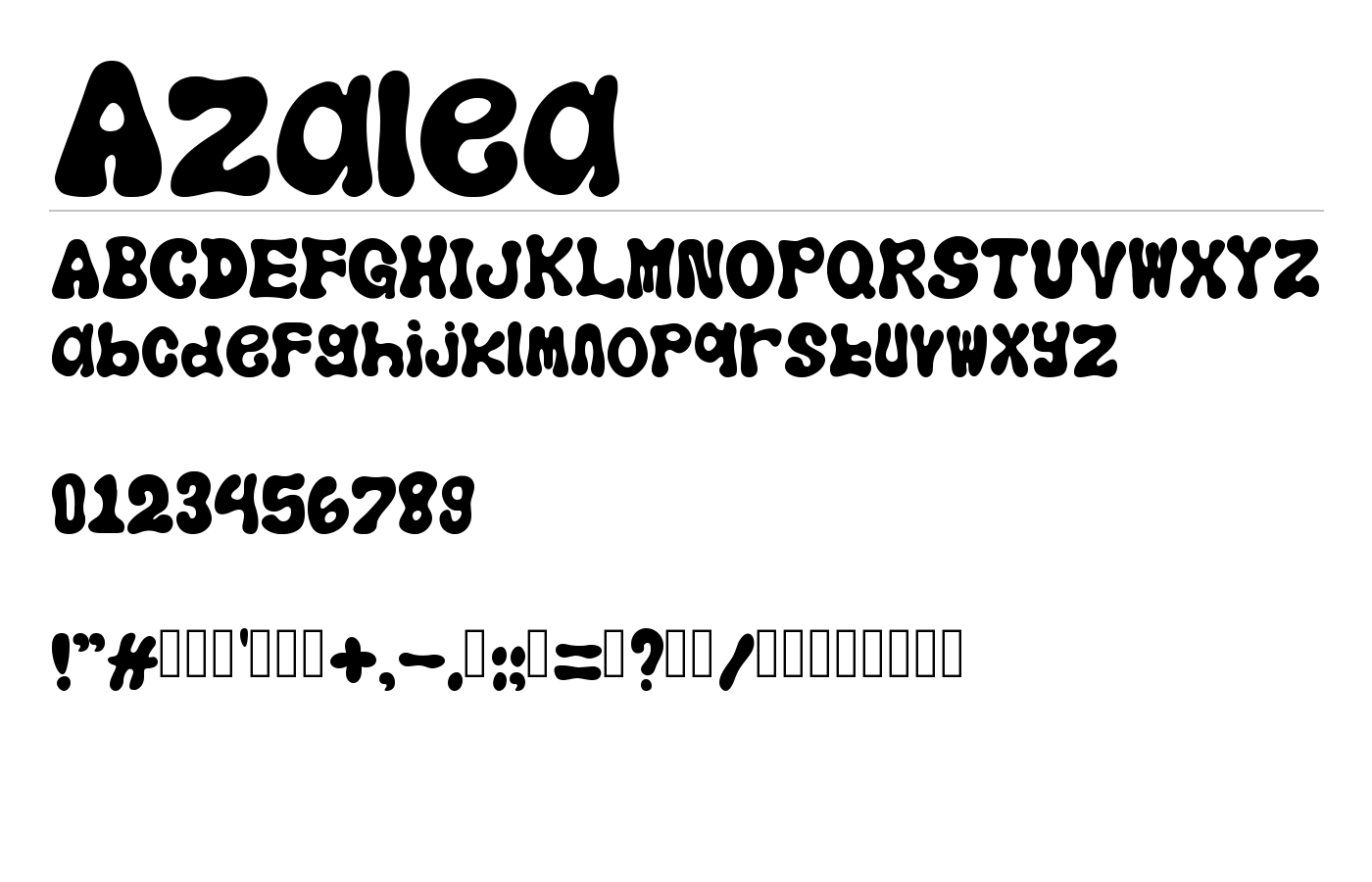
Azalea is a bold, playful display font featuring soft, rounded edges and a quirky, organic shape that gives it a fun and friendly personality. Its chunky, irregular letterforms work well for eye-catching headlines, logos, and creative projects that want to convey a whimsical or retro vibe. This font shines where strong character and a casual, approachable feel are needed to make a memorable impact.
Azalea Font
About Azalea Font